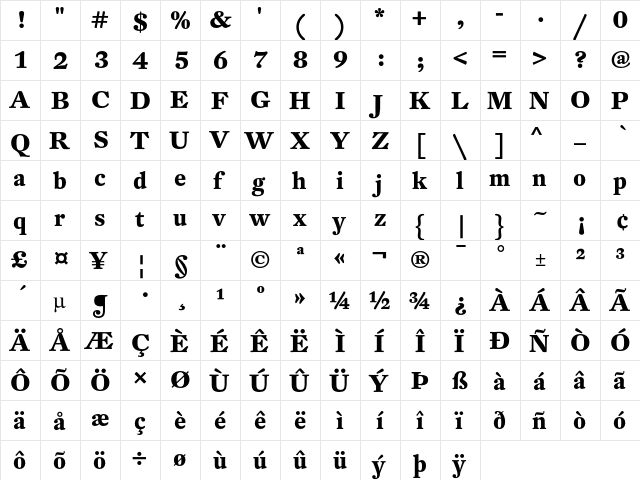
DTLFleischmannT Bold Font Preview
DTLFleischmannT Bold
Design Context for DTLFleischmannT Typeface
DTLFleischmannT offers clean, dependable letterforms without strong stylistic allegiance, making it a practical choice for designers who need flexibility. Its bold stroke weight gives it real presence on the page.